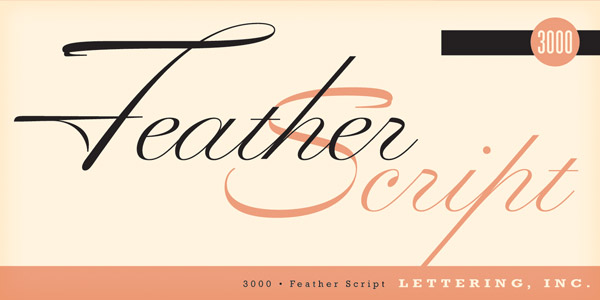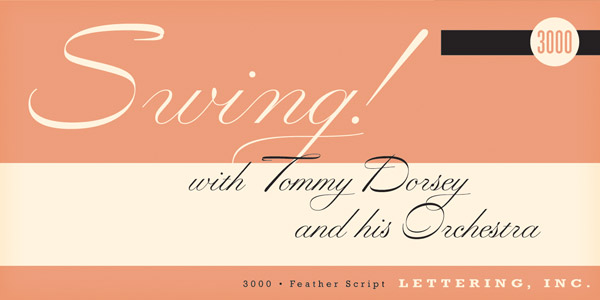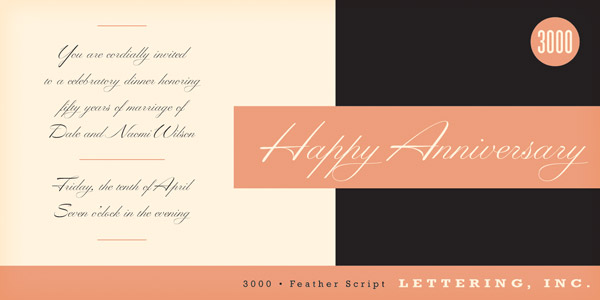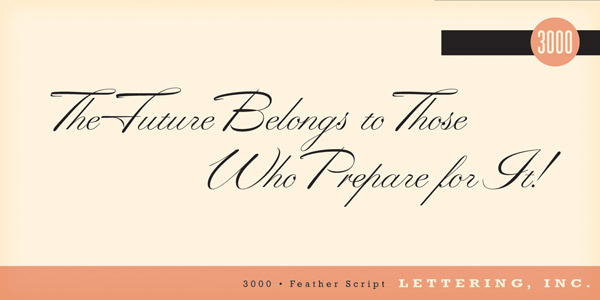
Feather Script.
A handwritten advertisers script introduced by Lettering Inc in the mid 1940s. The font is designed as display handlettering typeface for department store catalogs and automobile advertising. Feather Script includes a large assortment of alternate characters in dynamic OpenType format.